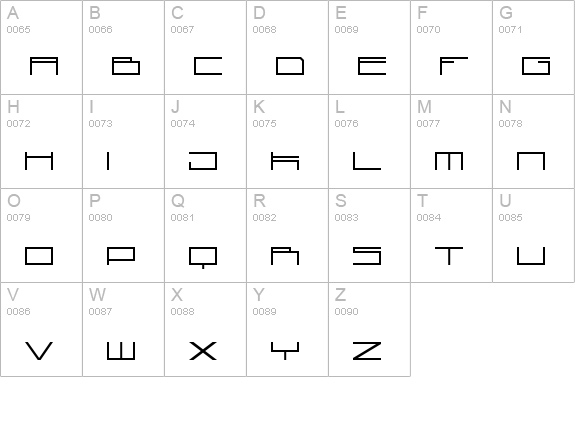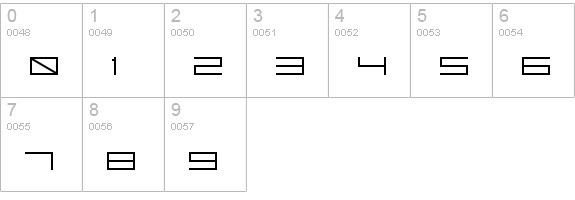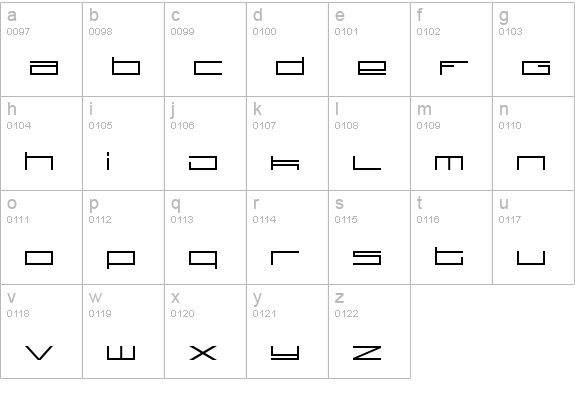
Introducing Technoid One, a truly captivating font that effortlessly blends sleek modernity with a touch of futuristic sophistication. Crafted with meticulous attention to detail, this font exudes an air of contemporary elegance that is sure to captivate and inspire. Technoid One stands as a testament to the power of technology and design, seamlessly merging the worlds of innovation and aesthetics. Its clean, crisp lines and geometric forms create a harmonious balance, making it the perfect choice for a wide range of creative projects. With its versatile nature, Technoid One is ideal for both digital and print designs. Whether you're creating a cutting-edge logo, a striking headline, or even a sleek website, this font will elevate your work to new heights. What's more, Technoid One is not only a stunning font, but it is also freely available to download at FontsMarket.com. This means that you can enjoy the modern allure of Technoid One without any cost or restrictions. So don't miss out on this incredible opportunity to enhance your designs with the captivating allure of Technoid One. Download it for free today at FontsMarket.com and embark on a journey of limitless creativity and visual excellence.